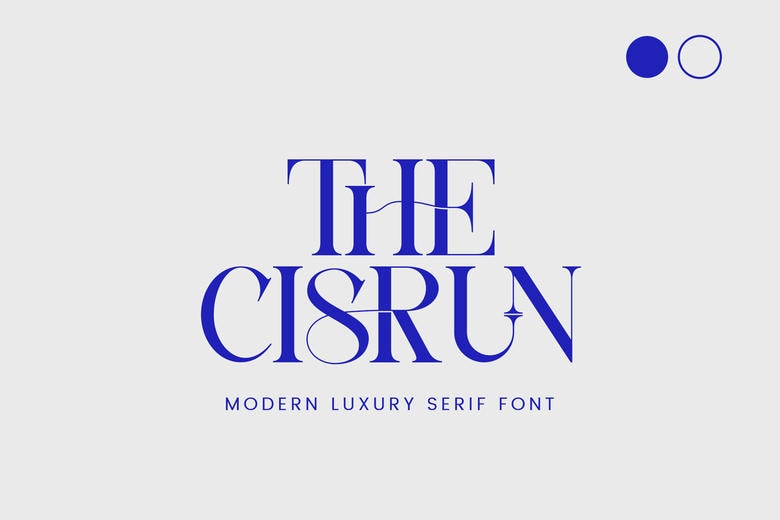
The Cisrun Font
The Cisrun Modern Luxury Serif is a font that is minimalist in nature. It suits all design requests e.g., logos, brochures, videos, advertising branding, posters, invitations, and More. It is the ideal font to use in order to use it in making your designs look professional and attractive.
The Cisrun Serif Font